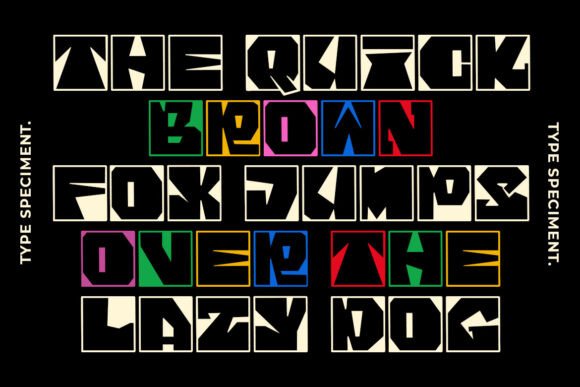
Groovy Texbox Font: The Ultimate Retro Display Font
Are you looking for a font that can add a touch of retro style to your designs? Look no further than the Groovy Texbox Font. This bold, blocky display font is perfect for creating a bold and playful retro look in posters, headlines, and other designs. In this article, we’ll take a closer look at the Groovy Texbox Font, its features, and how you can use it to enhance your designs.
What is Groovy Texbox Font?
Groovy Texbox Font is a bold, blocky display font with a retro style. Each letter is enclosed within a blocked box, giving it a distinctive, eye-catching appearance. The font is designed to evoke the look and feel of retro designs from the 60s and 70s, making it perfect for creating vintage-inspired posters, headlines, and other designs.
Benefits of Using Groovy Texbox Font
There are several benefits to using Groovy Texbox Font in your designs. Some of the key benefits include:
- Unique and eye-catching appearance: The blocked box design of each letter makes the font stand out and grab attention.
- Retro style: The font’s retro style makes it perfect for creating vintage-inspired designs.
- Bold and playful: The font’s bold and playful design makes it perfect for creating attention-grabbing posters and headlines.
- Easy to read: Despite its bold design, the font is easy to read, making it perfect for use in headlines and titles.
Uses of Groovy Texbox Font
Groovy Texbox Font is a versatile font that can be used in a variety of designs, including:
- Posters: The font’s bold and playful design makes it perfect for creating eye-catching posters.
- Headlines: The font’s bold design makes it perfect for use in headlines, where you want to grab the reader’s attention.
- Logos: The font’s unique design makes it perfect for use in logos, where you want to create a memorable brand identity.
- Social media graphics: The font’s bold and playful design makes it perfect for use in social media graphics, such as Facebook posts and Instagram stories.
Pairing Groovy Texbox Font with Other Fonts
When using Groovy Texbox Font, it’s essential to pair it with other fonts that complement its bold and playful design. Some font pairing suggestions include:
- Serif fonts: Pairing Groovy Texbox Font with serif fonts, such as Times New Roman or Georgia, creates a nice contrast between the bold and playful design of the Groovy Texbox Font and the classic design of the serif font.
- Script fonts: Pairing Groovy Texbox Font with script fonts, such as Pacifico or Great Vibes, adds a touch of elegance and sophistication to your designs.
- Sans-serif fonts: Pairing Groovy Texbox Font with sans-serif fonts, such as Arial or Helvetica, creates a clean and modern look.
Tips for Using Groovy Texbox Font
Here are some tips for using Groovy Texbox Font in your designs:
- Use it sparingly: While Groovy Texbox Font is a bold and eye-catching font, it can be overwhelming if used excessively. Use it sparingly to create a bold and playful look.
- Experiment with colors: The font’s bold design makes it perfect for experimenting with different colors. Try using different colors to create a unique and eye-catching look.
- Pay attention to font size: The font’s bold design makes it perfect for use in headlines and titles. However, it’s essential to pay attention to font size to ensure that the font is easy to read.
Groovy Texbox Font is a bold, blocky display font with a retro style that’s perfect for creating a bold and playful retro look in posters, headlines, and other designs. Its unique and eye-catching appearance, combined with its bold and playful design, makes it a versatile font that can be used in a variety of designs. By following the tips outlined in this article, you can use Groovy Texbox Font to create stunning designs that grab attention and leave a lasting impression.